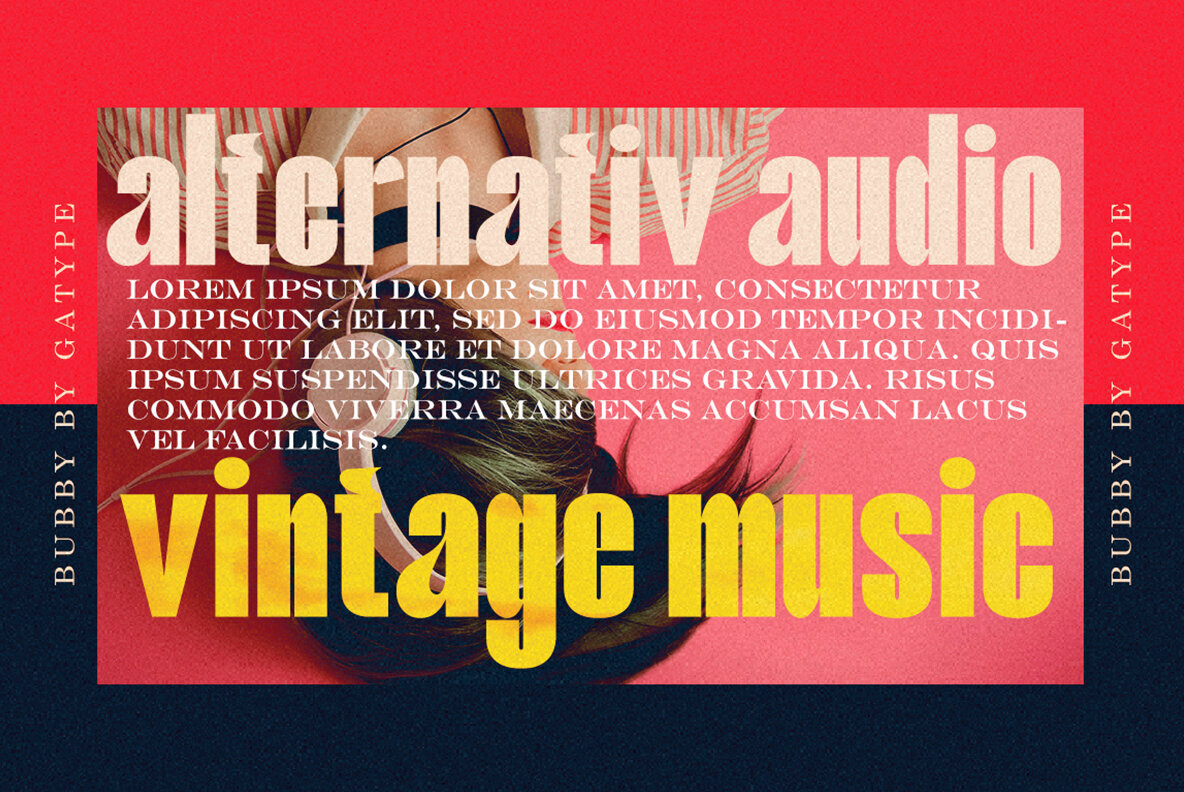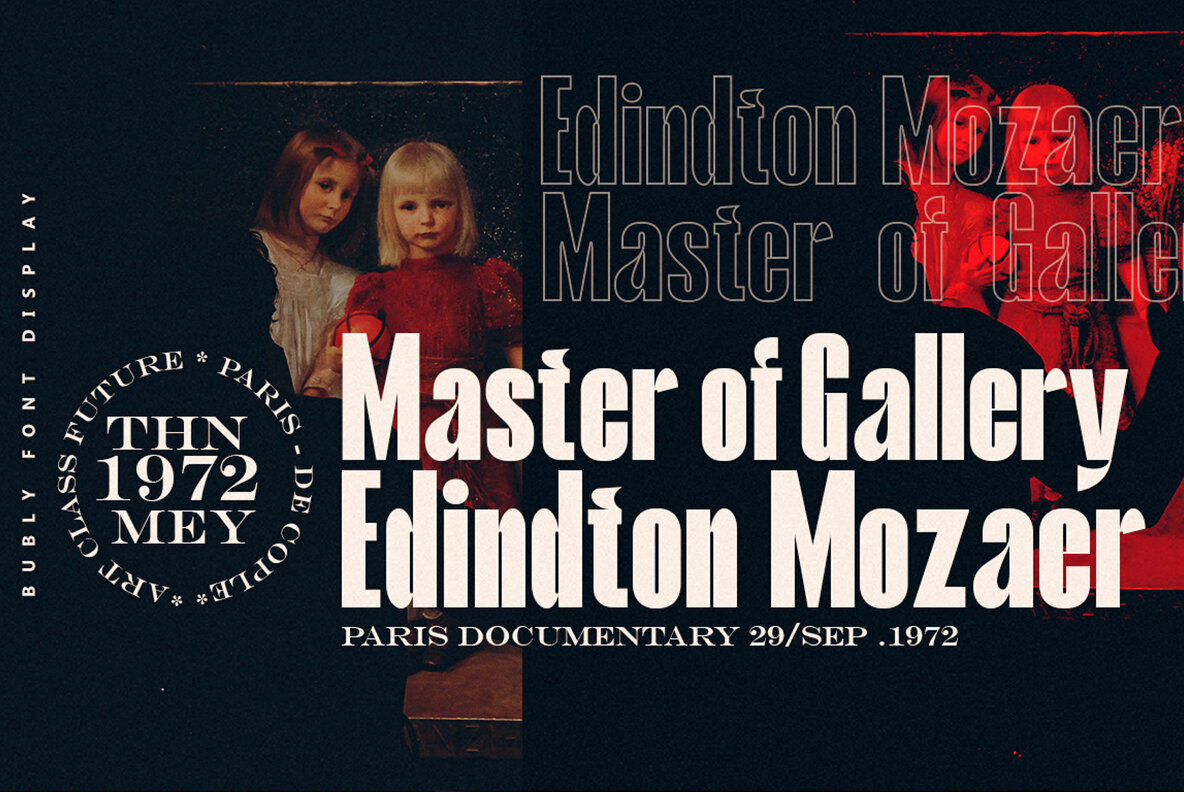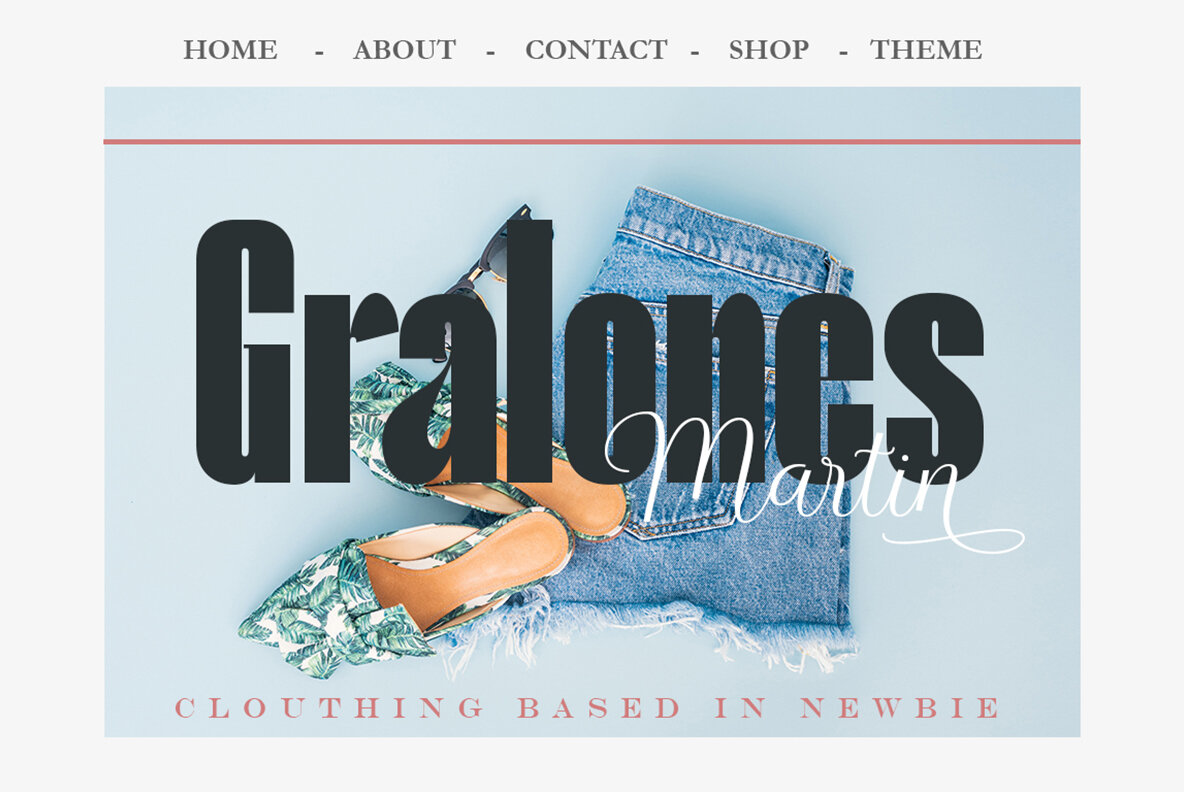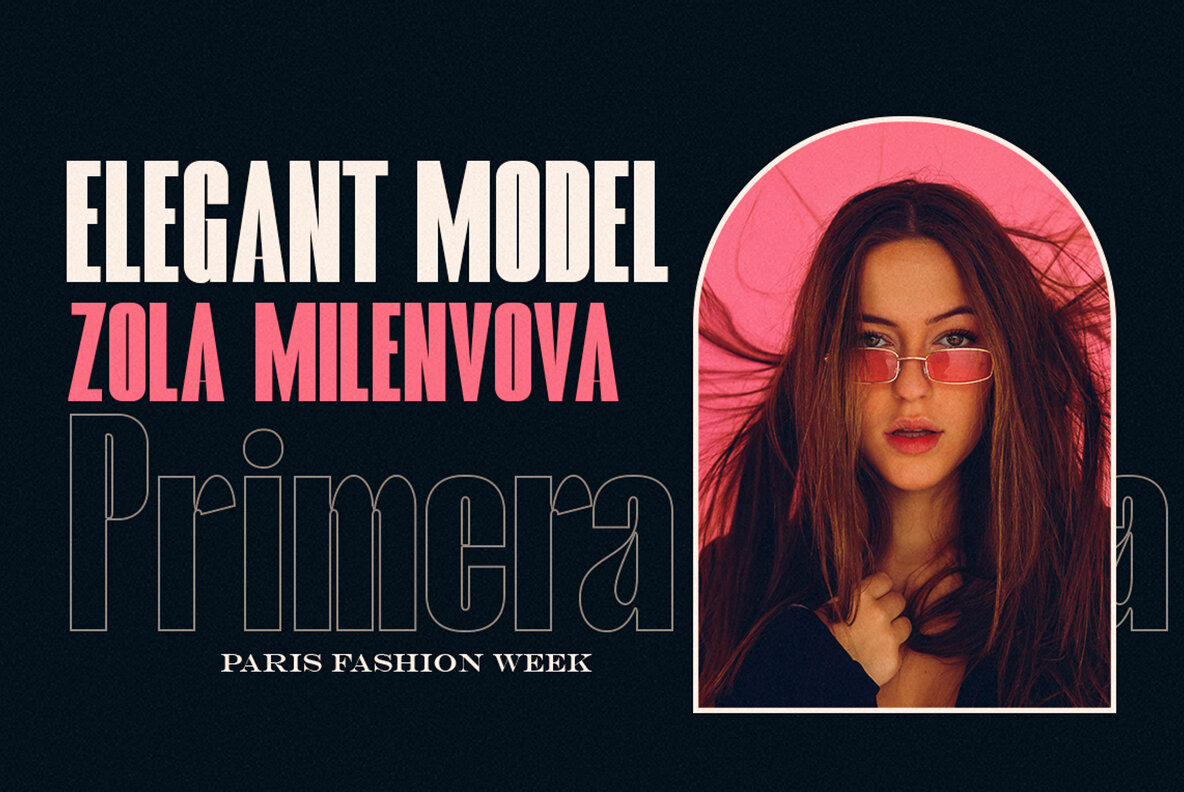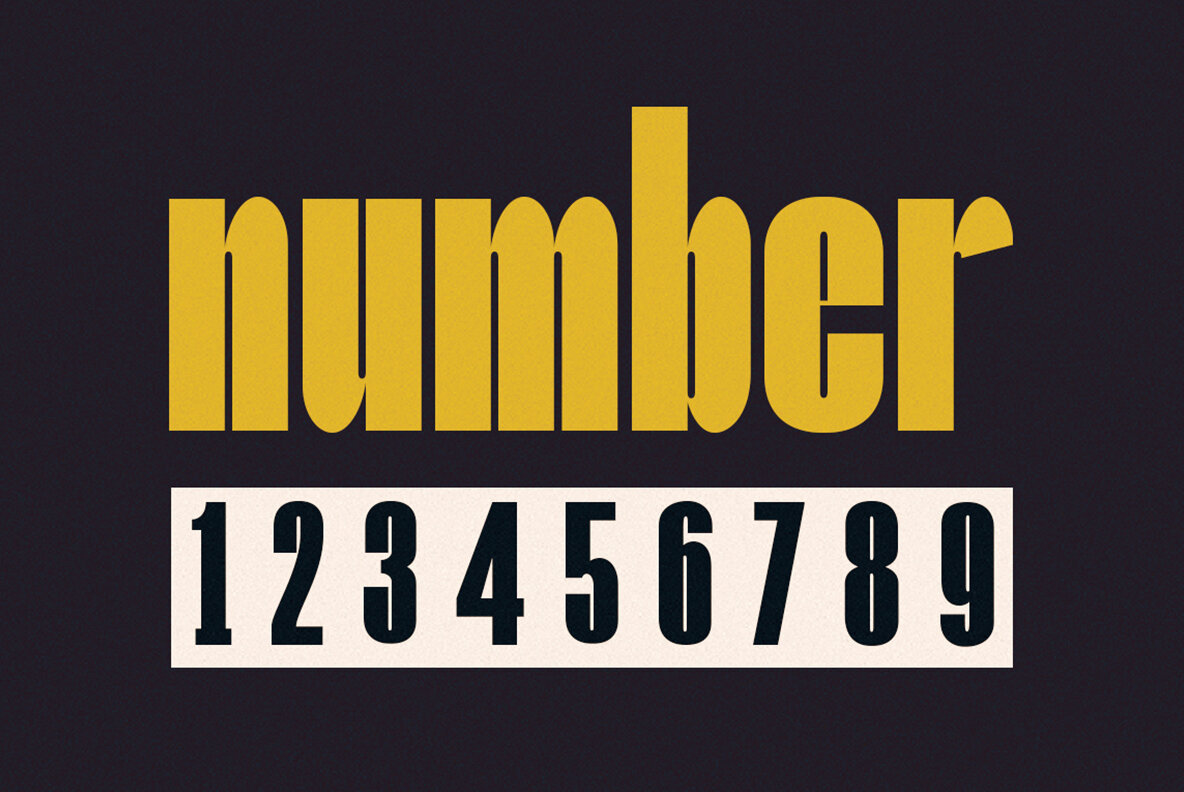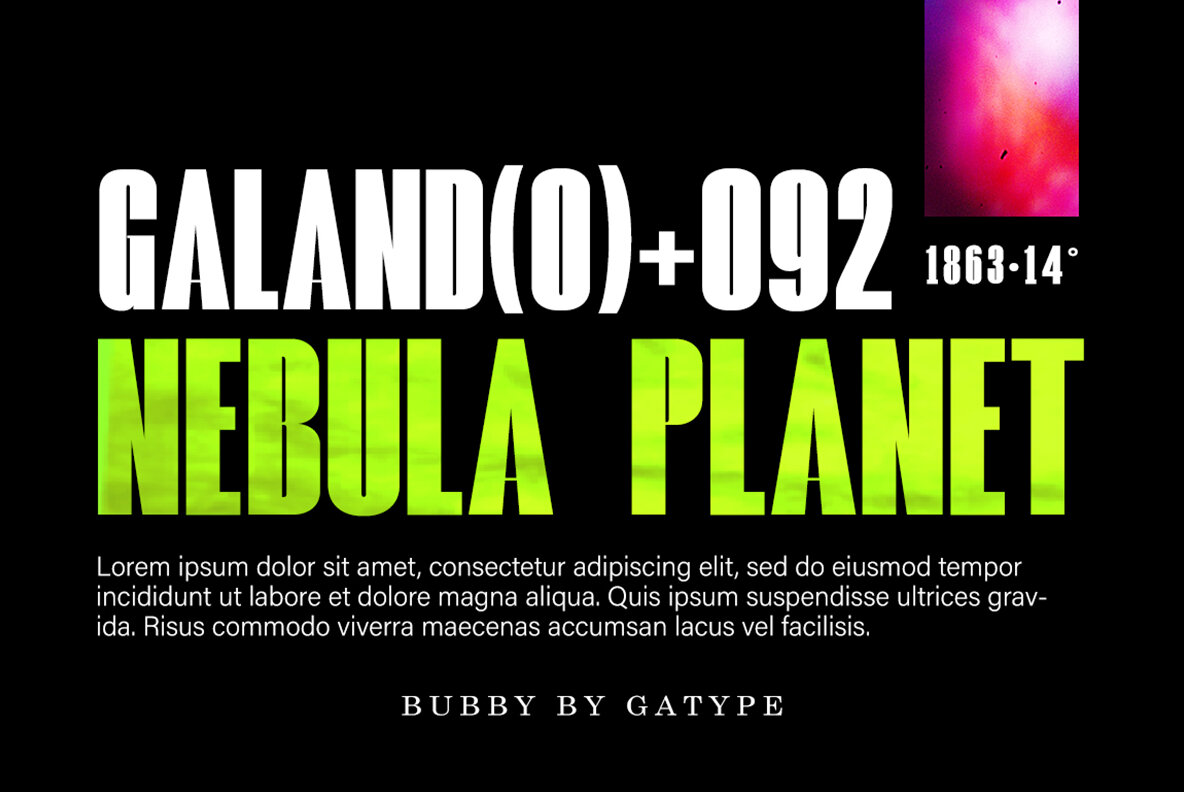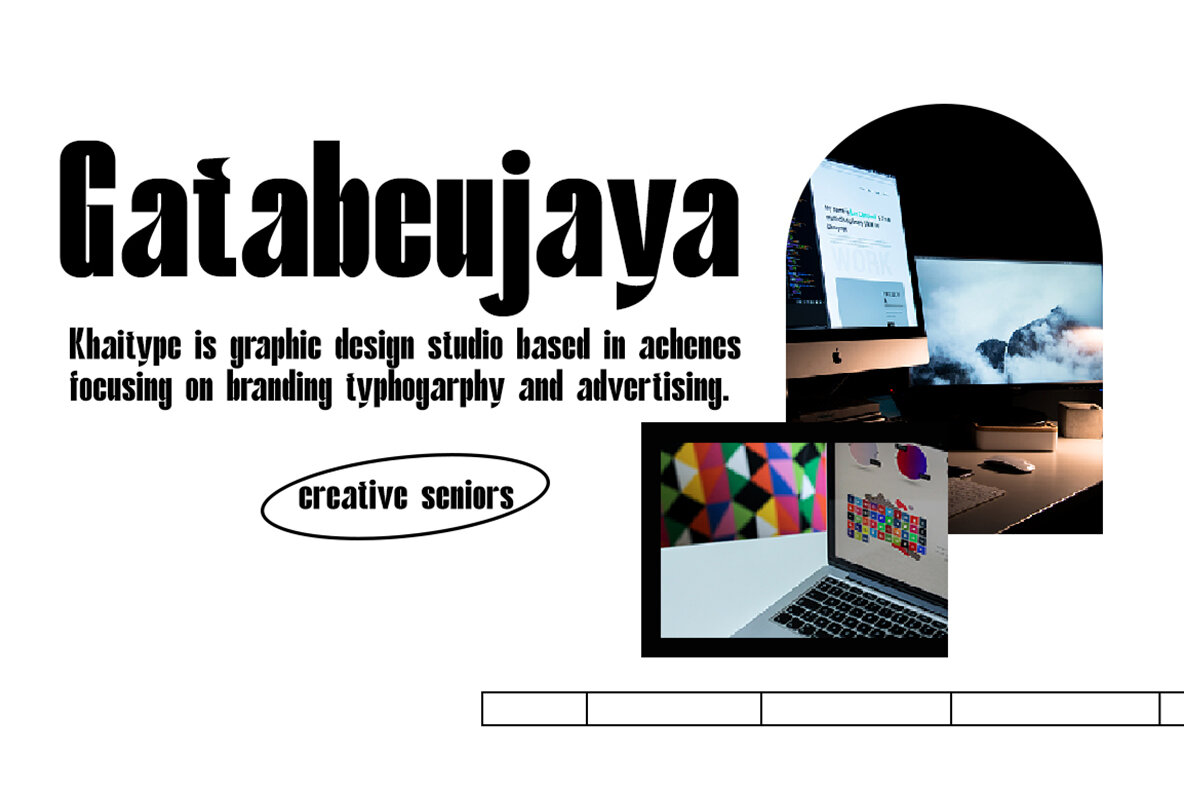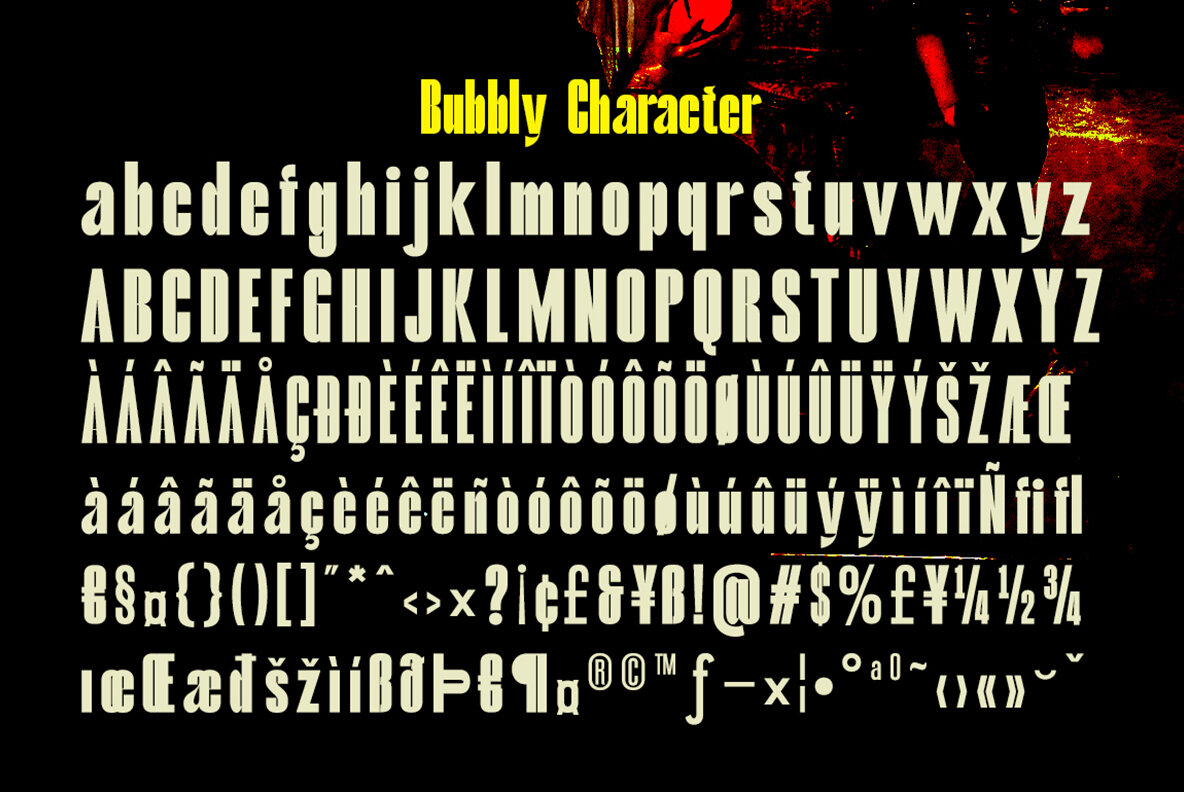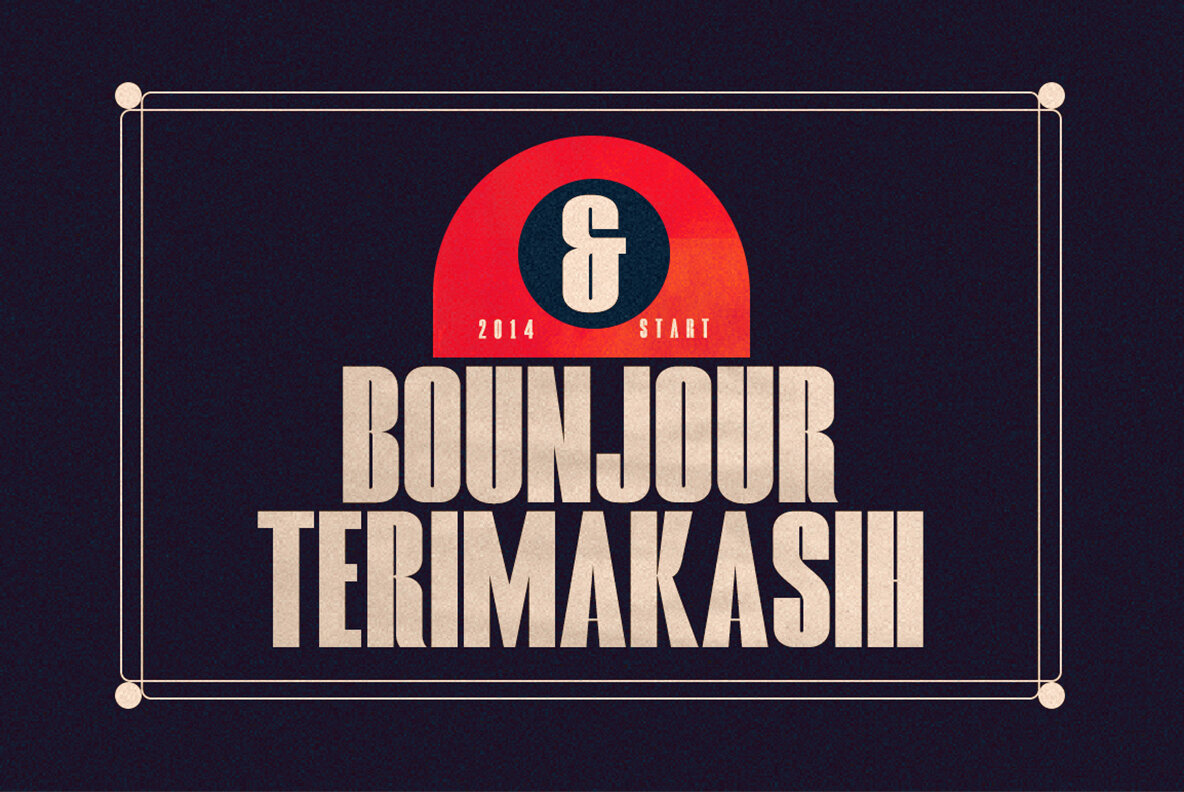
Bubbly Font
The Bubbly font by Gatype offers a harmonious blend of stylish, bold letters, creating a unique and elegant typography design. It's an excellent choice for those looking to make a striking impact in various creative projects. If you have any questions about the Bubbly font, feel free to reach out for assistance. Enjoy our fonts and the creative possibilities they offer!Stylish Bubbly Display: Elegant Typography Design